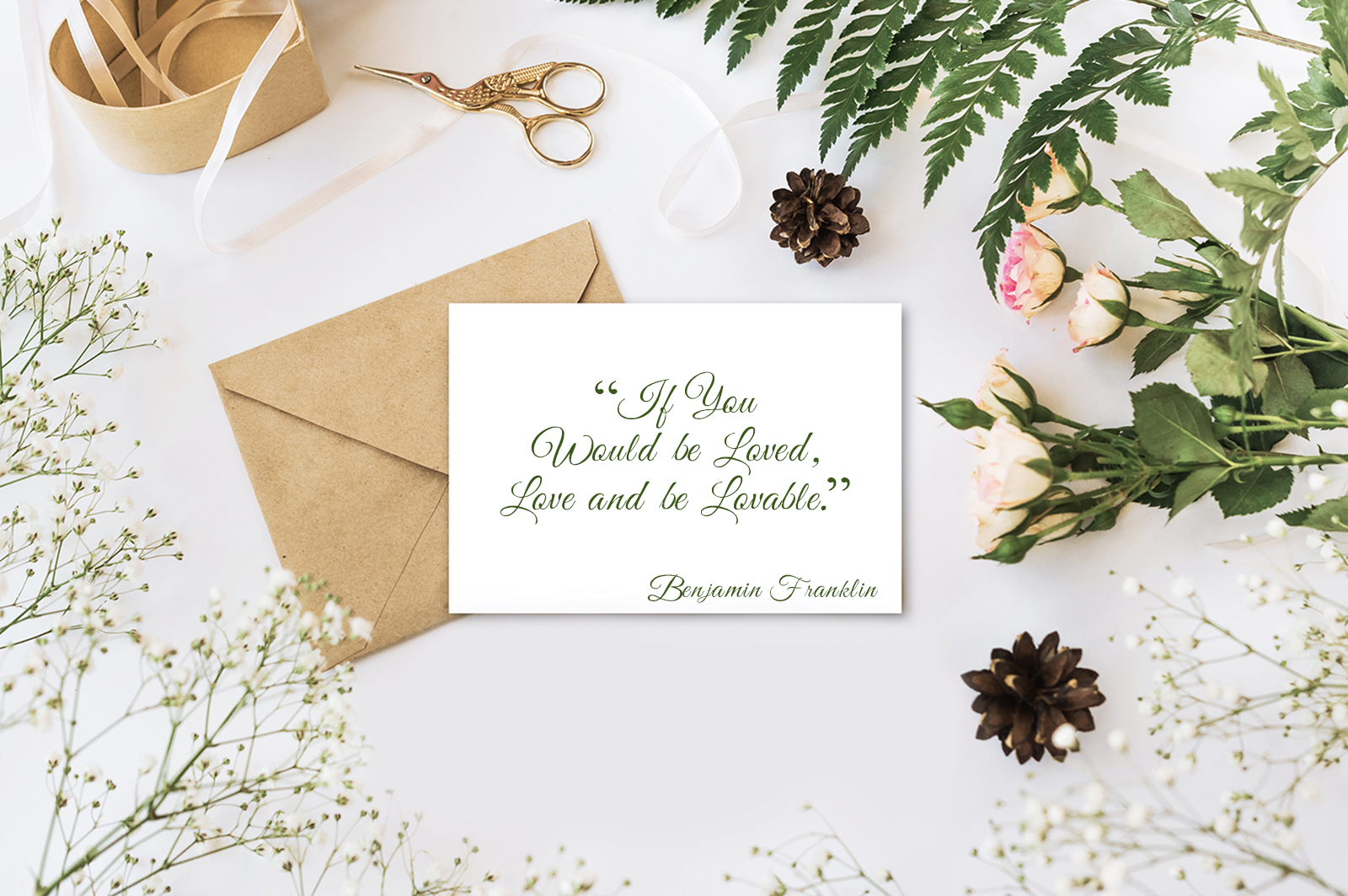
Gotemika Free Font
Gotemika Free Font is designed by FixThePhoto image editing service that can be very useful if you want to add a dark vintage charm to your projects. It works well for short descriptions, logos and brand identity designs, etc.